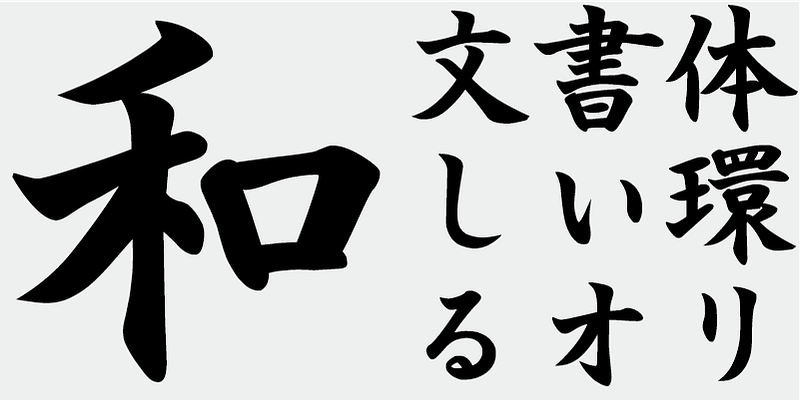
AB Doudoukaisyo Font Free Download is a refined and dignified Japanese-style typeface inspired by traditional "kaisho" (block script) calligraphy. With its clear structure, strong brush-based strokes, and elegant formality, this font is perfect for official documents, signage, ceremonial materials, product packaging, and any design that calls for heritage, authority, and cultural authenticity.
“Doudoukaisyo” suggests a bold and stately interpretation of the classic kaisho style—each character is beautifully balanced, easy to read, and rich in tradition. It’s ideal for situations where clarity and cultural presence are both essential, whether in a traditional context or a modern design with a historical influence.